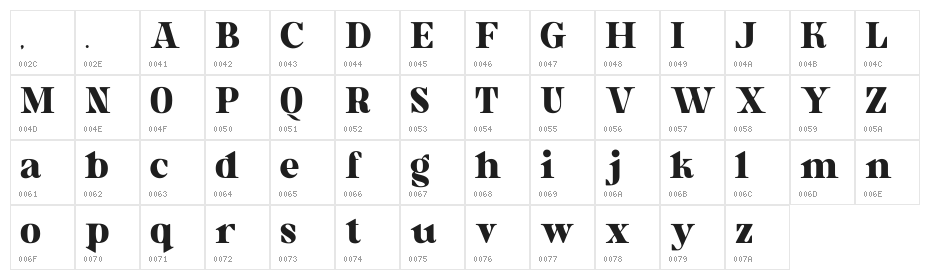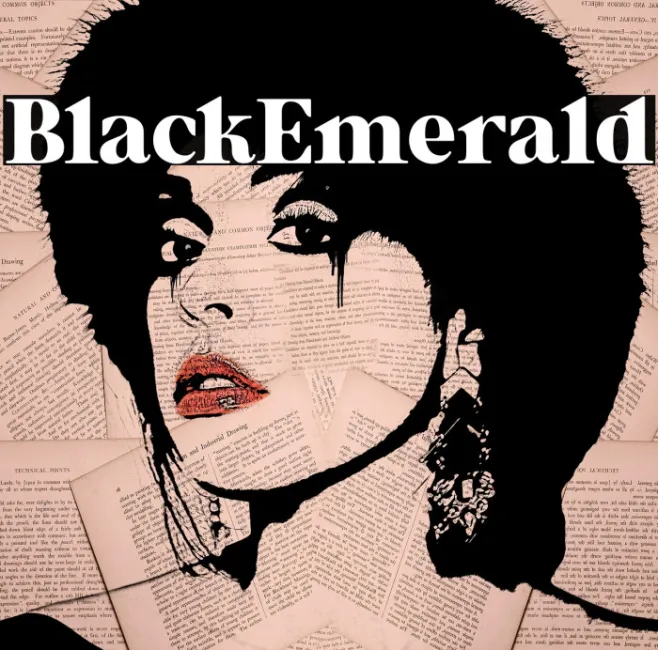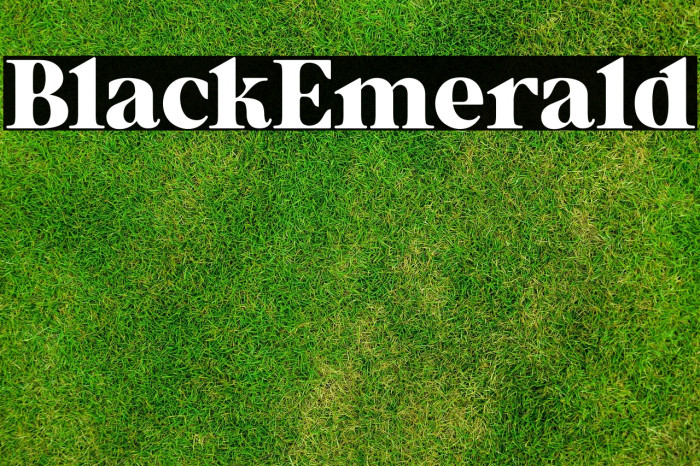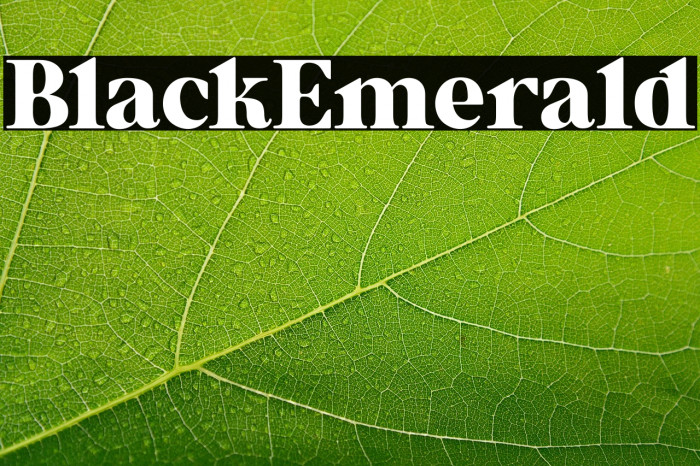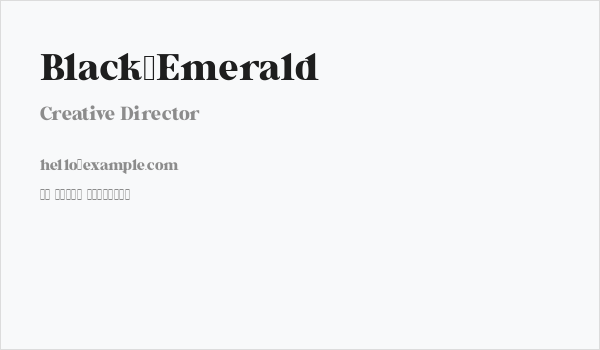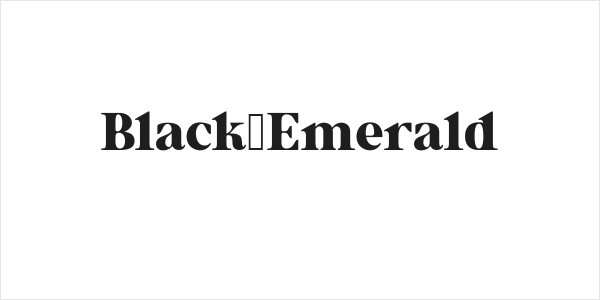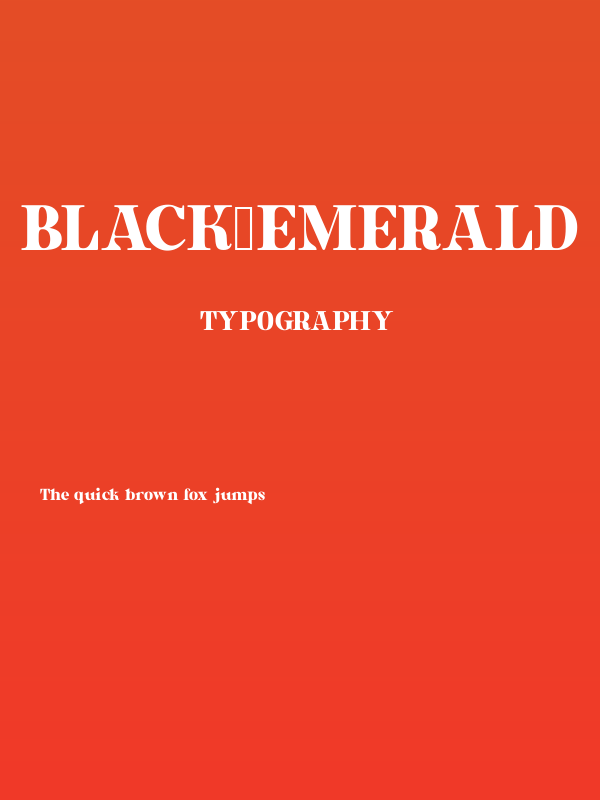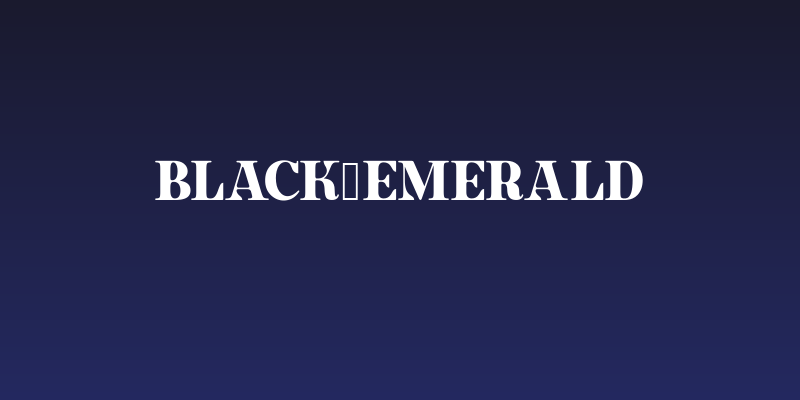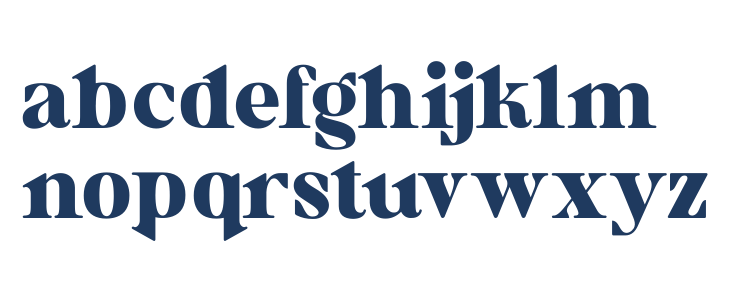
Black_Emerald Font
Black_Emerald Description
This font features a bold and striking design with a strong presence, making it ideal for impactful headlines and titles. The characters exhibit a classic serif style with pronounced, sharp serifs that add a touch of elegance and authority. The uppercase letters are particularly commanding, with a uniform height and consistent weight that conveys stability and confidence. The lowercase letters maintain the same boldness, ensuring readability while adding a touch of sophistication. The numbers and special characters are equally bold, ensuring consistency across all text elements. The overall design is reminiscent of traditional serif fonts but with a modern twist, making it versatile for various design projects.
| Proposed Projects | This font is perfect for branding projects, editorial design, posters, and any application where a strong, authoritative presence is desired. |